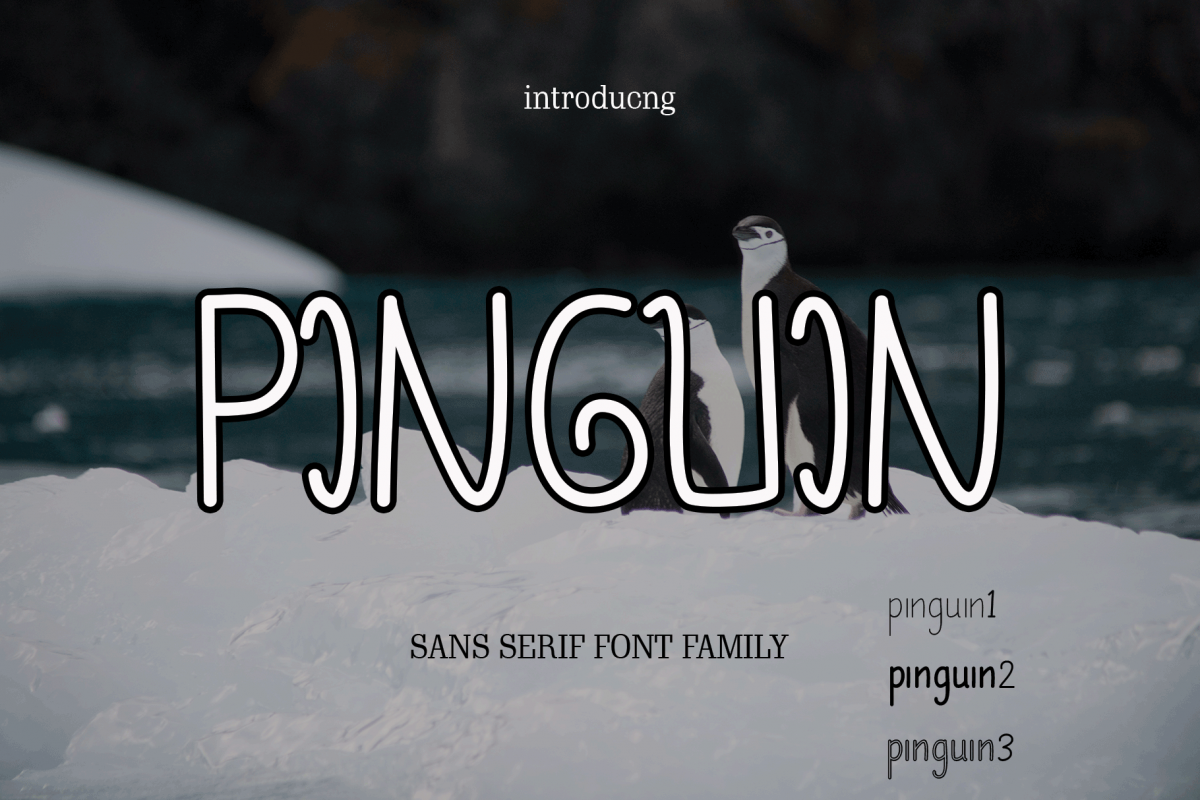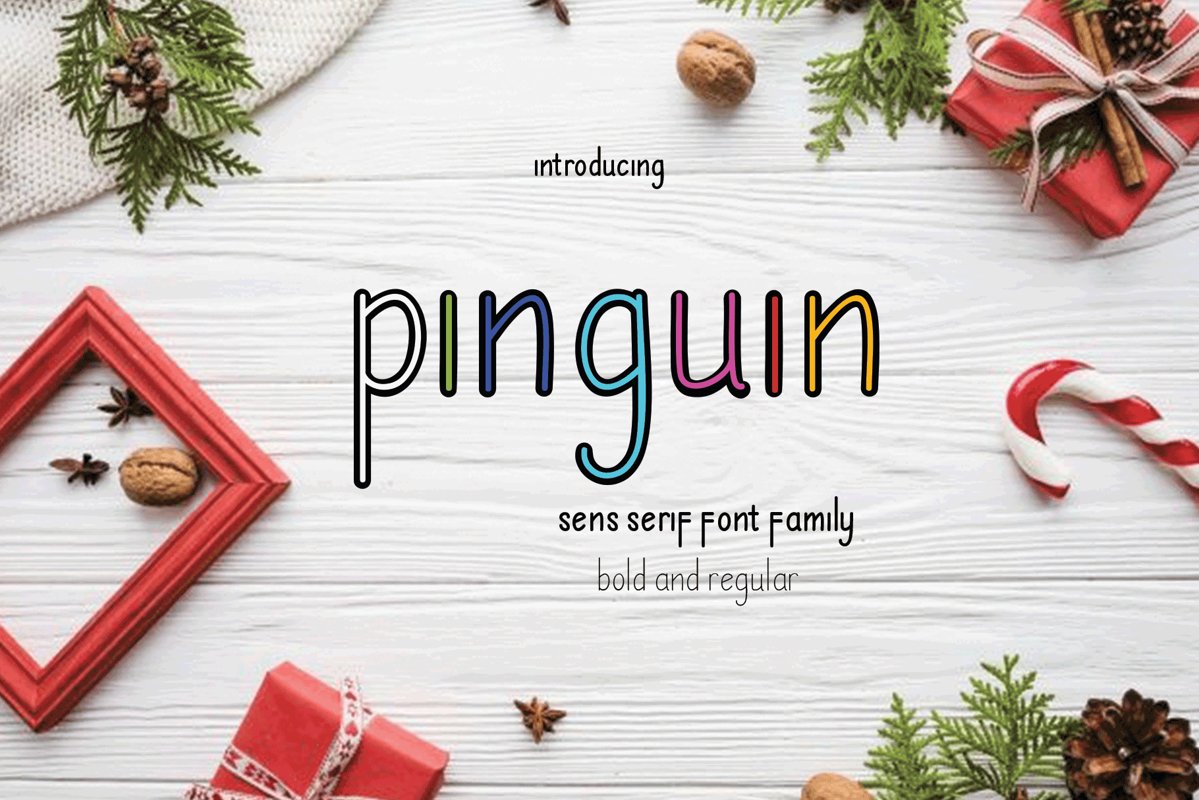
pinguin
pinguin bold
pinguin bold2
pinguin Font Family is new sans serif font has a sleek typeface, font is very simple and easy to manipulate: logo, slogan and made in advertising messages.